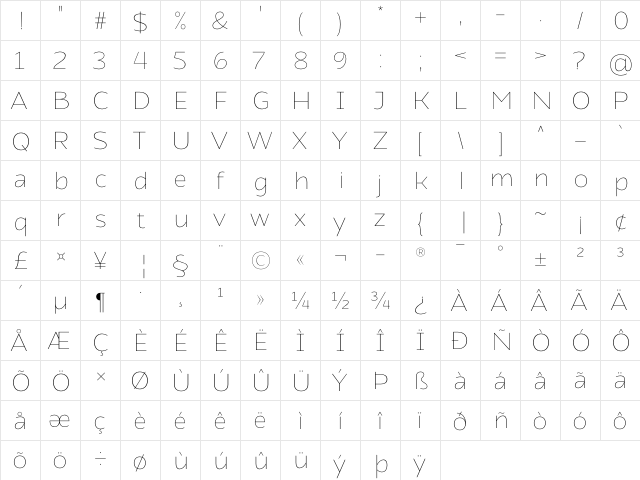
Atozimple Thin Regular
| Foundry | 7NTypes |
| Designer | Situjuh Nazara |
Design Context for Atozimple Thin Typeface
Atozimple Thin offers clean, dependable letterforms without strong stylistic allegiance, making it a practical choice for designers who need flexibility. The delicate stroke weight brings airiness and refinement to layouts.